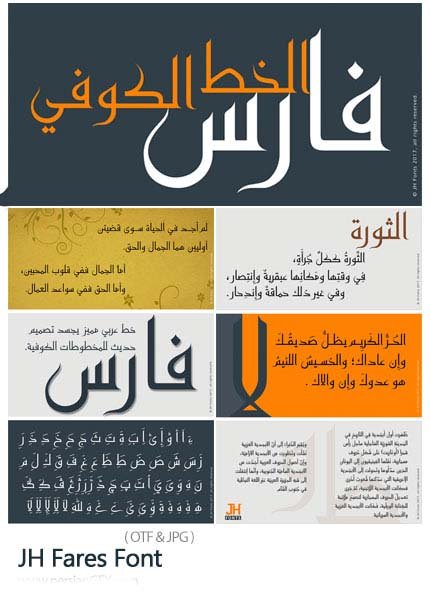
JH Fares Font
Fars is a thoughtfully crafted typeface that brings elegance and readability to Persian and Arabic typography. With its refined letterforms and versatile design, this font is perfectly suited for a wide range of applications—from print publications to digital interfaces.
Design Characteristics:
• Elegant, refined Persian and Arabic letterforms
• Balanced proportions for excellent readability
• Sophisticated design suitable for formal applications
• Versatile weight for multiple uses
• Timeless appeal with contemporary polish
Persian (Farsi) Script:
• Complete Persian character set
• Full support for Persian-specific characters (گ، چ، پ، ژ)
• Correct representation of Persian numerals
• Proper character connections and positioning
• Elegant styling across all letters
Arabic Script:
• Coordinated Arabic design matching Persian style
• Complete Arabic character set
• Full support for Arabic diacritics and marks
• Harmonious weight and proportion
• Editorial Design: Magazines, books, and publications
• Corporate Communications: Professional materials
• Web Design: Clean digital typography
• Print Materials: Brochures, flyers, and reports
• Packaging: Versatile product labels
• Branding: Elegant identity systems
• Signage: Professional displays
• Educational Materials: Clear, readable content
• Mobile Apps: Clean interface typography
• Elegant Design: Refined, sophisticated letterforms
• Excellent Readability: Clear at any size
• Versatile Application: Works across all media
• Professional Quality: High-caliber font for commercial use
• Coordinated Scripts: Harmonious Persian and Arabic
Key Features of Fars Font:
• Elegant Persian and Arabic design
• Complete character sets for both scripts
• Refined, sophisticated aesthetic
• Perfect for professional and editorial applications
• Editorial and publication designers
• Corporate communications professionals
• Web and digital designers
• Brand and identity creators
• Anyone needing elegant, readable Persian/Arabic typography